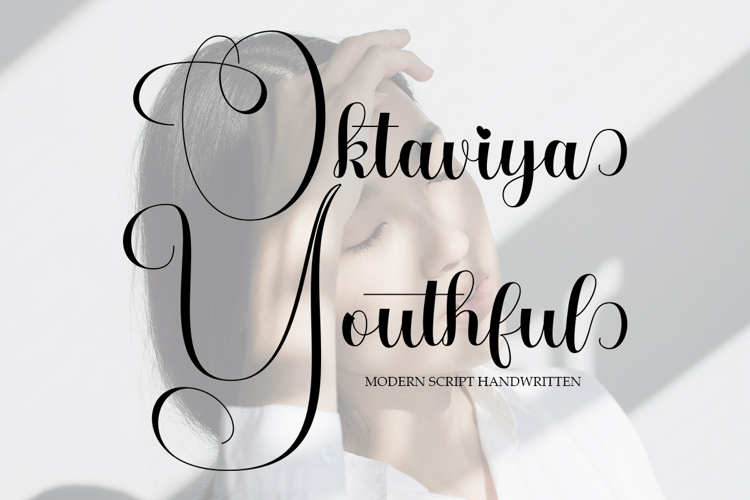
Beautiful Handwriting
Oktaviya Youthful is a calligraphy font that comes with a very beautiful character change, a kind of classic decorative copper script with a modern touch, designed in great detail for an elegant style.
Oktaviya Youthful is attractive because it is smooth, clean, feminine, sensual, glamorous, simple, and very easy to read, due to the many luxurious letter connections. The classic style is perfect for applications in various formal forms such as invitations, labels, restaurant menus, logos, fashion, makeup, stationery, novels, magazines, books, greeting/wedding cards, packaging, or all types of advertising needs.